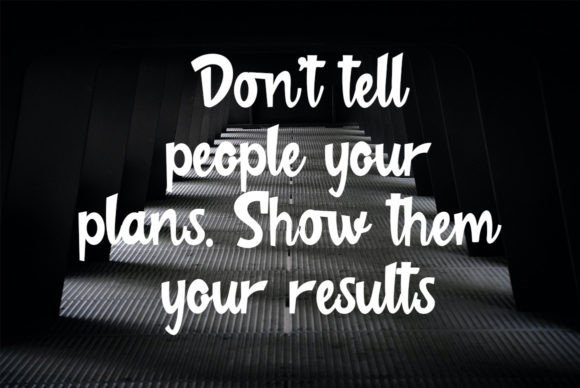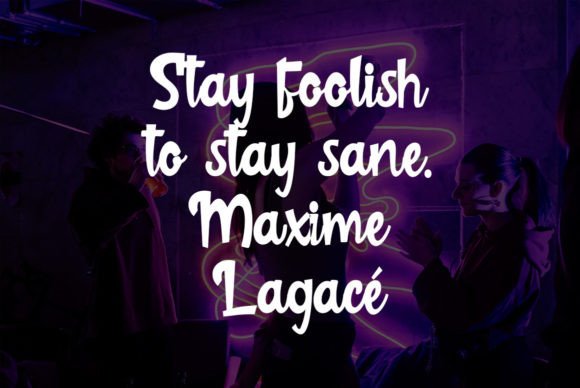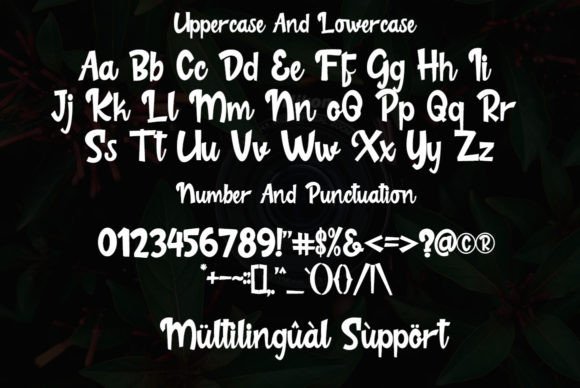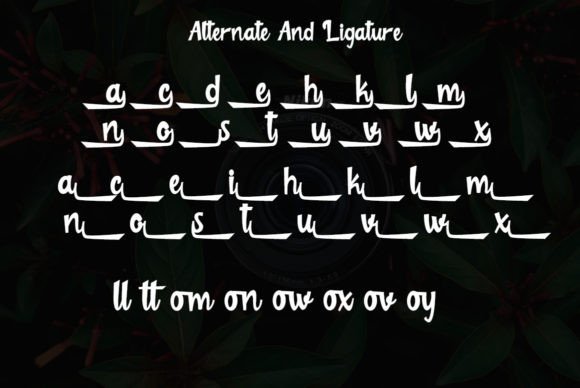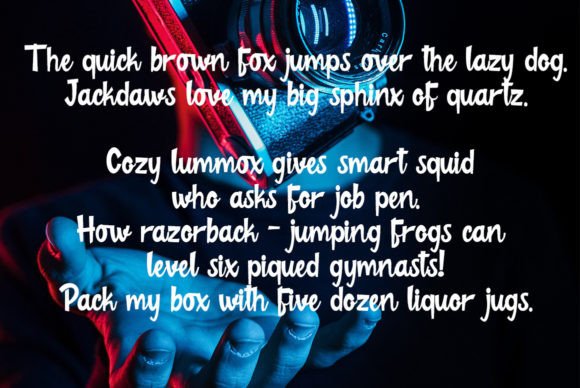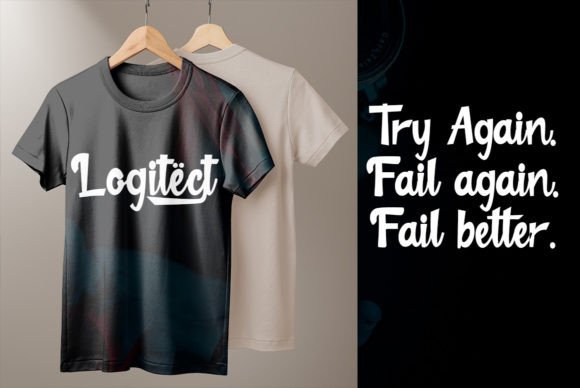
Introduction to Logitect Font
Have you ever stared at a blank page, waiting for that perfect design idea to strike? It’s a feeling that many designers know all too well. For me, it was a late-night brainstorming session, surrounded by scribbled notes and half-finished sketches. And then, it happened – a burst of creativity that left me excited to dive into my next project. That’s exactly what the Logitect Font can do for you, bringing your designs to life with its unique and beautiful script.
As a valuable design resource, the Logitect Font offers a high-quality, creative solution for any project. Whether you’re working on a logo, branding, or quote, this font is sure to make your design stand out. And the best part? It’s available for free download, making it a transparent and accessible addition to your design arsenal.
Key Features of Logitect Font
- High-quality design resource for creative projects, ideal for logos, icons, and graphics.
- Features a transparent background, making it easy to use as a standalone element or combine with other design elements.
- Designed with precision and attention to detail, resulting in a crisp and clear appearance at any resolution.
- Includes a range of scalable sizes, from 10pt to 100pt, to accommodate various design requirements.
- Perfect for designers and artists looking for a unique and versatile font to elevate their creative projects.
Honest Review: Logitect Font
I recently stumbled upon the Logitect Font, a high-quality design resource that caught my attention. As a designer, I’m always on the lookout for fresh and unique fonts to enhance my creative projects. In this review, I’ll share my honest thoughts on this font.
- High-quality design: The Logitect Font boasts a clean and modern design that’s perfect for various creative projects.
- Transparent background: The font’s transparent background allows for easy layering and customization, giving me more creative freedom.
While the Logitect Font is an excellent addition to my design arsenal, I do have a few concerns:
- Limited font styles: The font only comes in a few styles, which might limit its versatility for more complex projects.
- No additional weights: I wish there were additional weights or styles available to provide more options for customization.
Overall, I’m impressed with the Logitect Font’s quality and design. While it may have some limitations, it’s an excellent resource for designers looking for a high-quality, free font. I’d definitely recommend it for most creative projects.
Tips for Getting the Most Out of Logitect Font
For transparent backgrounds, make sure to use a high-quality image or design element that complements the Logitect Font. Experiment with different font sizes and styles to create a visually appealing design. Logitect Font is a great resource for creating a unique and creative design for your project.
Logitect Font can be used for a variety of creative projects, including business cards, brochures, and social media graphics. It’s also a great resource for creating a high-quality design for your website or blog. With its transparent background and high-quality design, Logitect Font is a valuable design resource for any creative project.